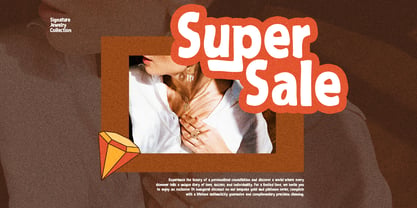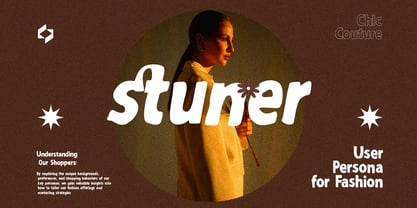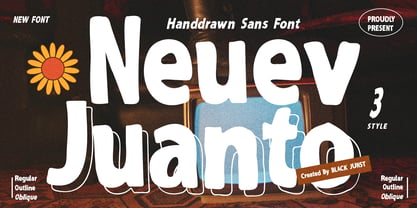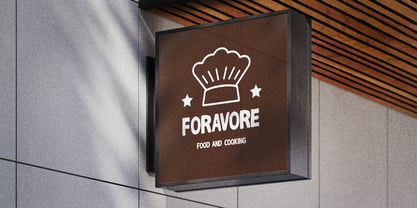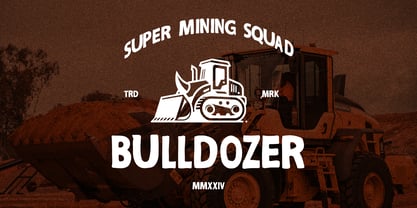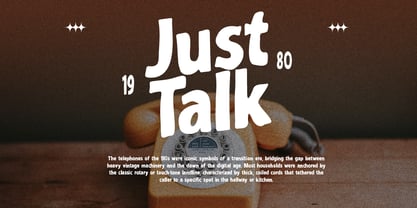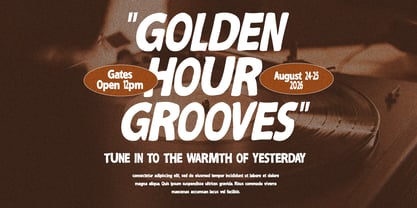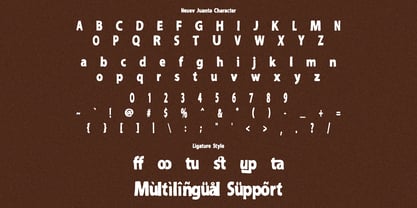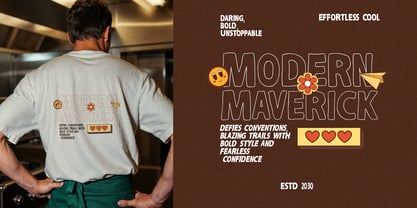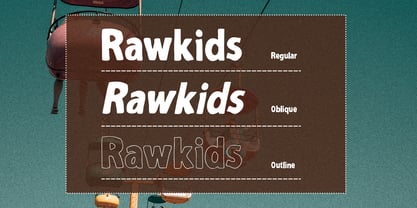
Neuev Juanto
by Black Junst
The Neuev Juanto Font Family was designed by Maulana Semar and published by Black Junst. Neuev Juanto contains 3 styles and family package options. More about this family
Neuev Juanto is a bold handwritten sans font that brings a soft, playful, and friendly touch to your designs. With its chunky rounded shapes and organic flow, it strikes an ideal balance between fun and readability, making it versatile for contemporary creative projects. This font is perfect for branding, packaging, logos, social media content, children's products, and food & beverage designs. Whether crafting eye-catching headlines or establishing a warm brand identity, Neuev Juanto ensures your message stands out with personality and charm. It offers multiple styles, including Regular, Oblique, and Outline, providing flexibility to mix and match for dynamic visuals. Ideal for designers, creators, and business owners, Neuev Juanto feels approachable, bold, and modern. Add it to your collection to enhance your designs and make them more attractive and memorable.
Designers: Maulana Semar
Foundry: Black Junst